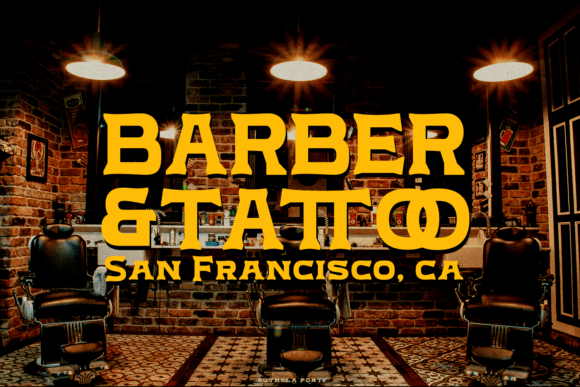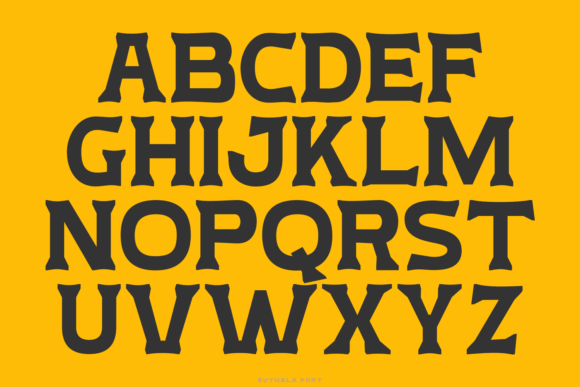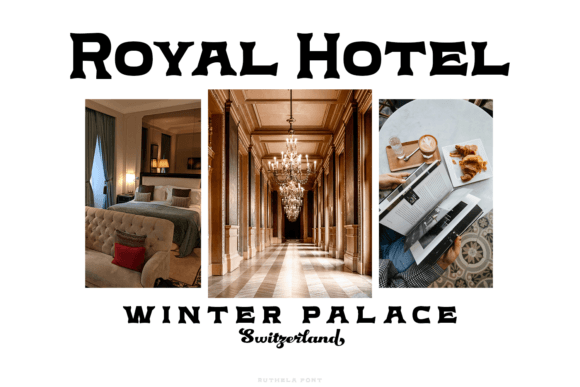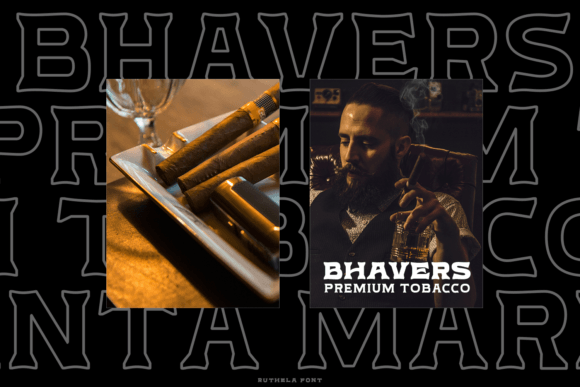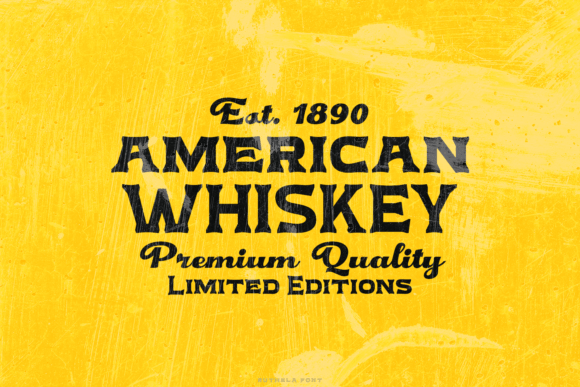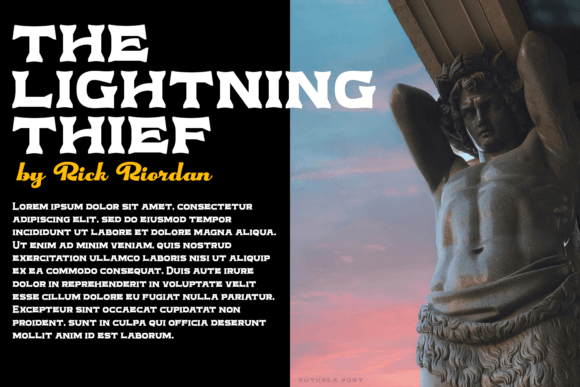
Introduction to Ruthela Font
Ruthela is a vintage font, that comes with single-weight, legible, and expressive shapes.
You can explore and combine creating a rhythm for comfortable reading A lot of stylish alternate characters will make this font suitable for any project design.